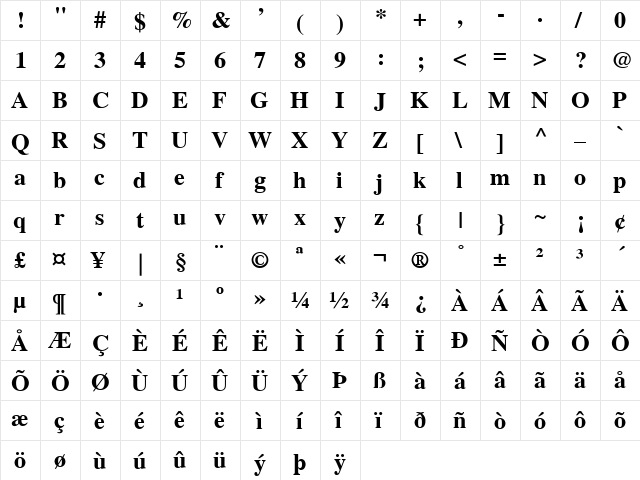
Toronto Bold
Design Context for Toronto Typeface
Toronto takes a measured approach to typography — its balanced proportions and neutral character make it a reliable workhorse for both digital and print work. The heavy weight commands attention and anchors typographic hierarchies.
Pro Tip: Use Toronto in both headline and body roles to test its range before committing to a single application.